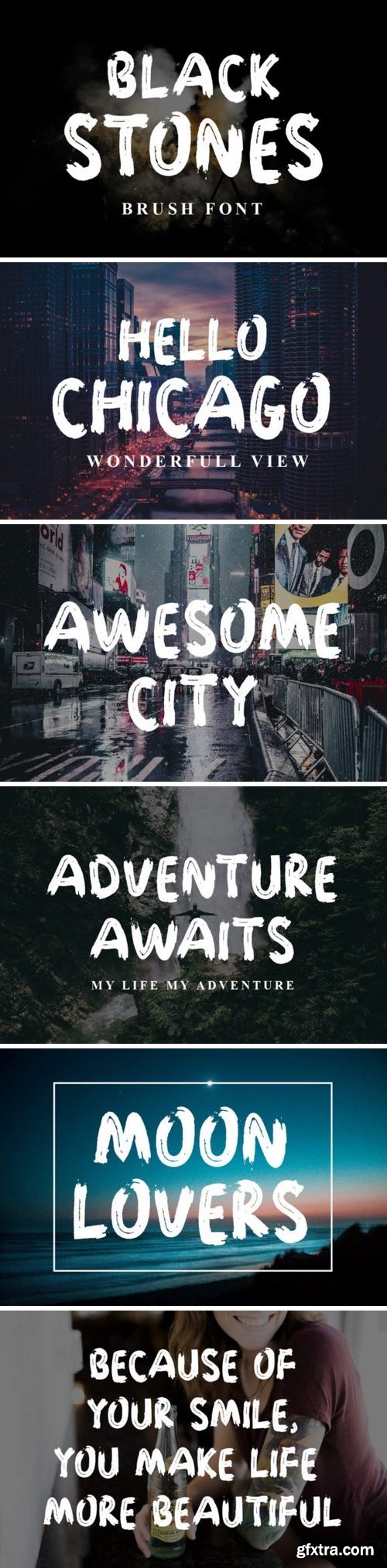
BLACK STONES is a supercharged, street-wise brush font bursting with energy. With extra attention to quick strokes and sharp details, BLACK STONES is guaranteed to deliver an unapologetically loud & fast-paced message; ideal for logos, apparel, quotes, product packaging, or anything which needs a typographic turbo-boost.